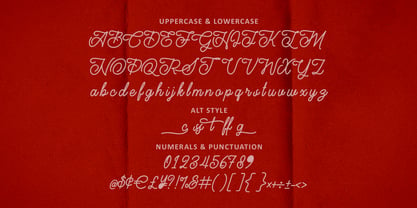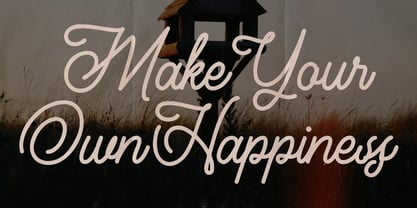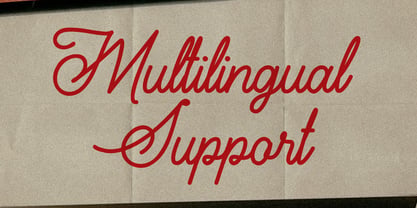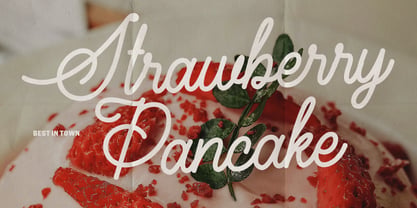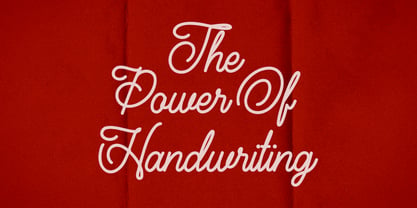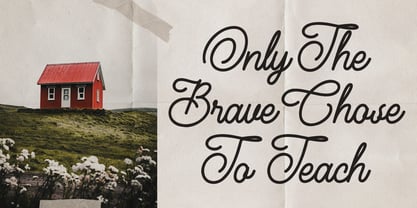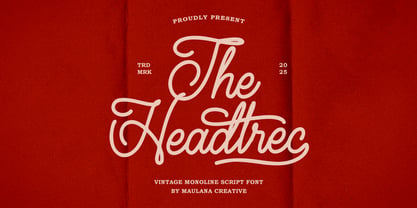
MC Headtrec
by Maulana Creative
The MC Headtrec Font Family was designed by Gilang Maulana and published by Maulana Creative. MC Headtrec contains 1 styles. More about this family
Headtrec is an unique monoline retro script font. With regular contrast stroke, fun character with a bit of ligatures and alternates. To give you an extra creative work. Headtrec font support multilingual more than 100+ language. This font is good for logo design, Social media, Movie Titles, Books Titles, a short text even a long text letter and good for your secondary text font with sans or serif. Make a stunning work with Headtrec font.